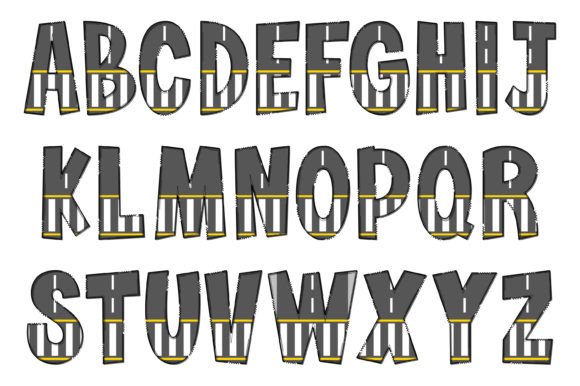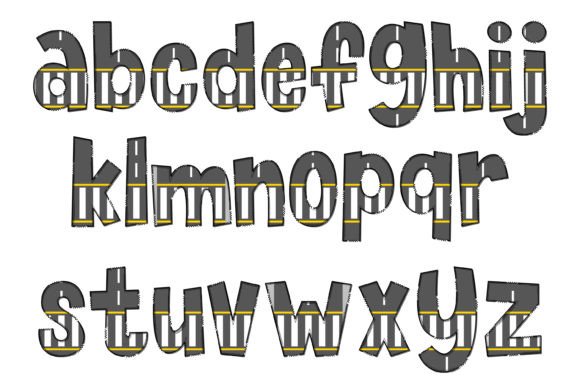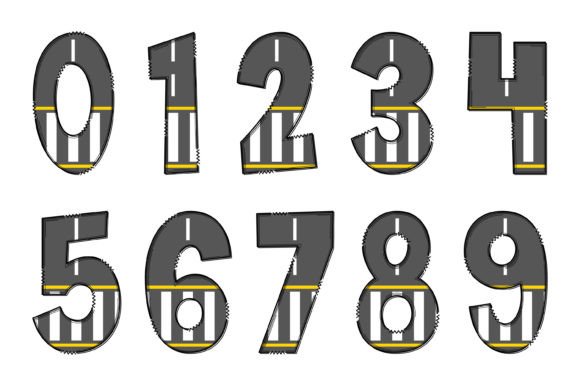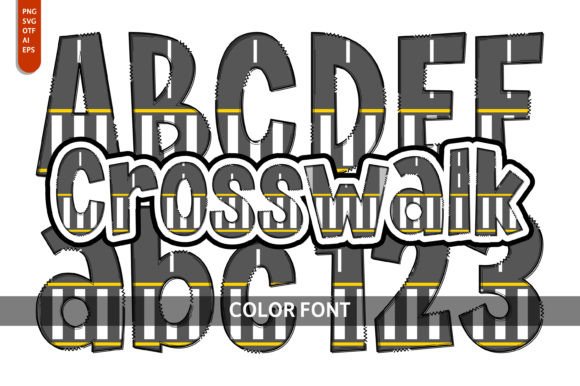
Crosswalk Font: Adding a Playful Touch to Your Designs
When it comes to creating visually appealing designs that convey a playful or artistic feel, the right font can make all the difference. This is where the Crosswalk Font comes in – a delightful and whimsical font perfect for a variety of design projects, including children’s books, posters, invitations, greeting cards, and more.
The Power of Fonts in Design
Fonts play a crucial role in design, as they can greatly impact the overall aesthetic and tone of a project. In designs aimed at children, for instance, fonts that are whimsical, colorful, and easy to read are essential in creating an engaging reading experience. The Crosswalk Font is specifically designed to meet these requirements, making it an excellent choice for designers and crafters looking to add a playful touch to their work.
What is Crosswalk Font?
Crosswalk Font is a unique and creative font that boasts a distinctive, artistic feel. Its playful and whimsical design makes it perfect for a wide range of applications, from children’s books and educational materials to posters, invitations, and greeting cards. The font’s versatility and charm have made it a popular choice among designers and crafters looking to add a touch of personality to their designs.
Key Features of Crosswalk Font
Using Crosswalk Font in Your Designs
Crosswalk Font can be used in a variety of design projects, including:
- Children’s Books: The font’s whimsical and playful design makes it perfect for children’s books, creating an engaging and fun reading experience for young audiences.
- Posters: Add a touch of personality to your posters with Crosswalk Font, making them stand out and grab attention.
- Invitations: Create unique and playful invitations for parties, events, or celebrations using Crosswalk Font.
- Greeting Cards: Add a personal touch to your greeting cards with Crosswalk Font, making them special and memorable.
Tips for Working with Crosswalk Font
To get the most out of Crosswalk Font, here are a few tips:
- Experiment with Colors: As a color font, Crosswalk Font offers endless possibilities for creative color combinations. Experiment with different colors to find the perfect fit for your design.
- Play with Size and Style: Don’t be afraid to play with the font size and style to create visual interest and hierarchy in your design.
- Pair with Other Fonts: Crosswalk Font can be paired with other fonts to create a unique and visually appealing design. Experiment with different font combinations to find the perfect match.
Crosswalk Font is a versatile and playful font that can add a touch of personality to a wide range of design projects. Its whimsical and artistic feel makes it perfect for children’s books, posters, invitations, greeting cards, and more. With its compatibility with popular design software and endless possibilities for creative color combinations, Crosswalk Font is a must-have for designers and crafters looking to create engaging and visually appealing designs.